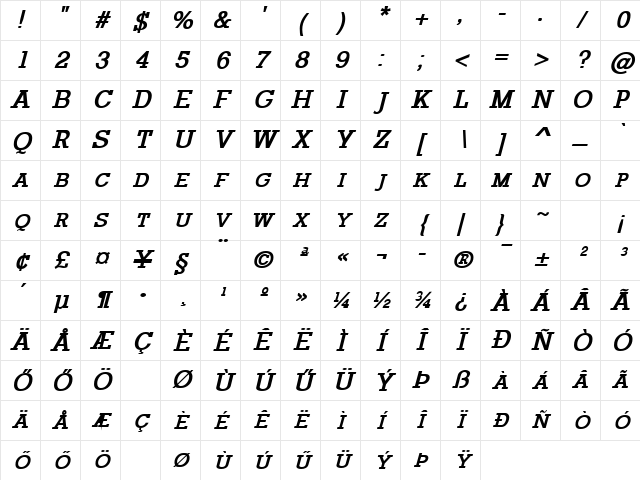
Hu_RockfordExpert BoldItalic Regular
Design Context for Hu_RockfordExpert BoldItalic
Hu_RockfordExpert BoldItalic is a composed and adaptable typeface that performs quietly and consistently across a wide range of design contexts. The slanted form adds forward momentum and visual energy. Its bold stroke weight gives it real presence on the page.